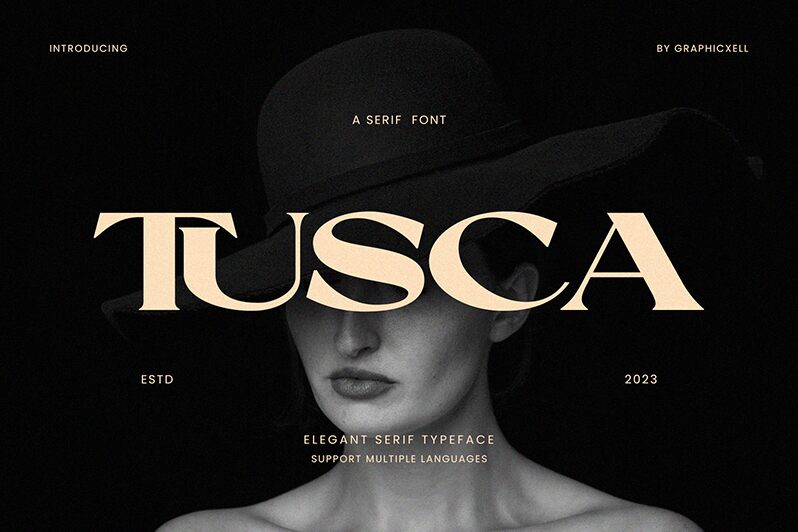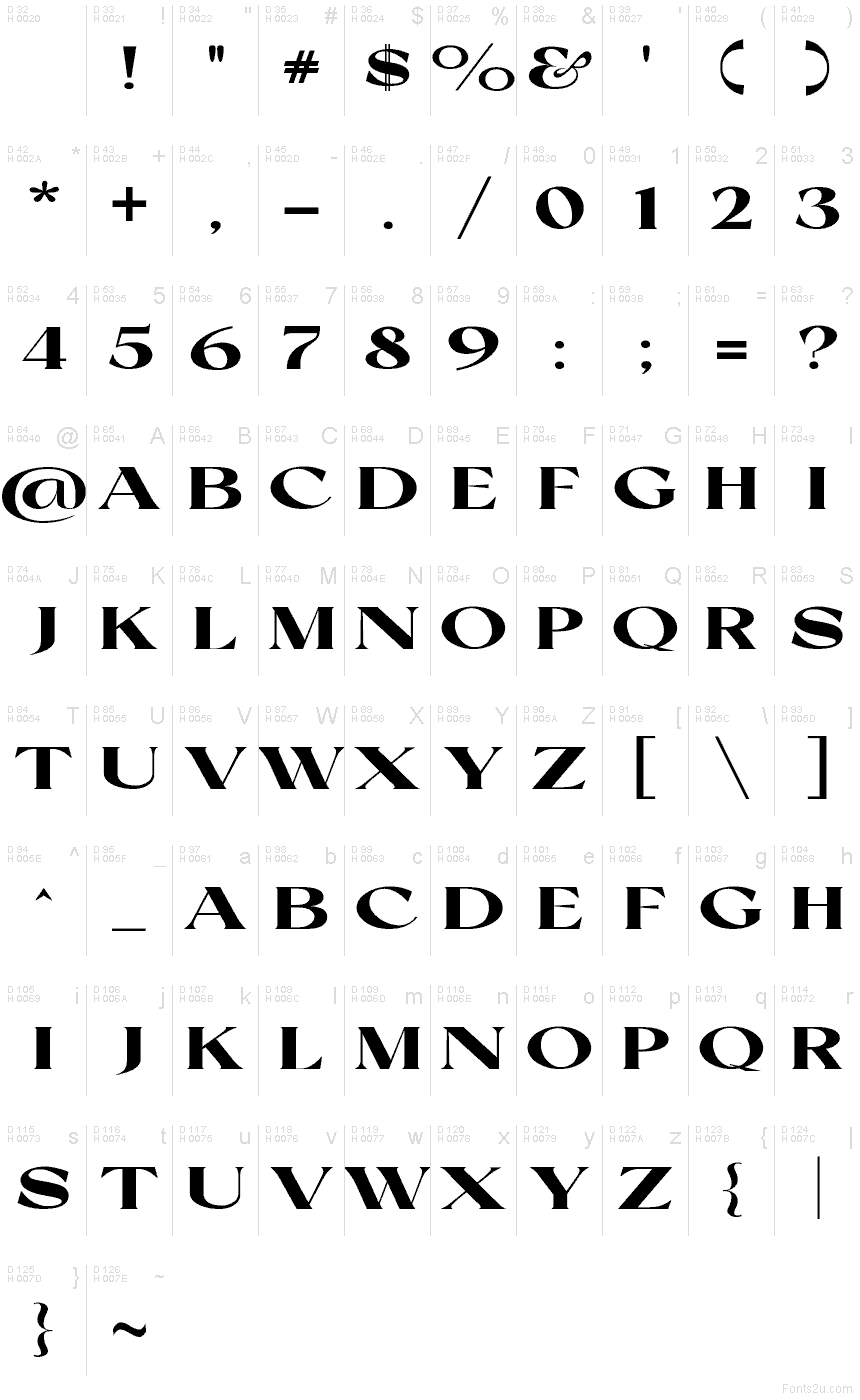
Tusca font by Graphicxell is a free serif font that feels like it was pulled straight from a glossy magazine cover. Its tall, confident letters, inky black weight, and sweeping curves give each word a sense of drama, while those sharp, sculpted serifs keep everything crisp and controlled. The spacing feels tight and intentional, so headlines lock together with a strong, luxurious rhythm.
Using Tusca, you can bring bold character to fashion branding, beauty packaging, editorial spreads, posters, book covers, invitations, and statement logos. This free font shines when set large, where its curves and angles can really breathe. For body copy, pair Tusca with a clean geometric sans to balance its rich, theatrical voice.